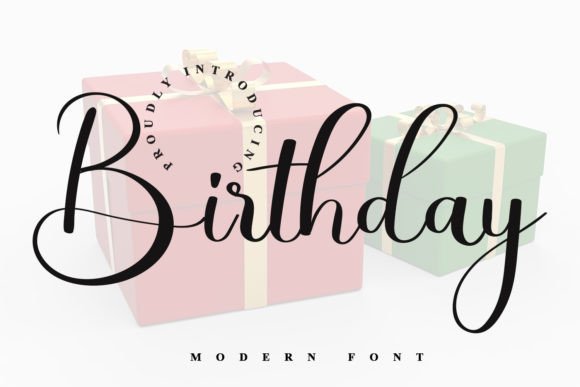
The Birth of a Beautiful Font: Celebrating Birthday Font
I’ll never forget the moment I stumbled upon the perfect font for a client’s birthday project. I was working on a tight deadline, and my design just wasn’t coming together. The client’s request was simple: create a beautiful banner that would make their loved one’s special day unforgettable. But, as I scrolled through my font library, nothing seemed quite right. That was when I discovered Birthday Font – a modern handwritten typeface that instantly elevated my design.
After working with Birthday Font on several projects, here’s my honest review:
- ✨ Beautifully crafted letters: Each letterform is carefully designed to be both elegant and playful.
- ✅ Versatile: From banners and quotes to branding and logos, Birthday Font adapts seamlessly to various design needs.
- ⚠️ Limited multilingual support: While Birthday Font covers the basics, it might not be the best choice for projects requiring extensive multilingual support.
- 🤔 Some glyphs require adjustment: A few glyphs, like the ampersand, might need tweaking to fit perfectly in your design.
- Experiment with OpenType features, like stylistic alternates, to add more personality to your text.
The Designer Inspiration Behind Birthday Font
Birthday Font was created by a talented designer with a passion for handwriting and typography. The story goes that the designer was inspired by the beauty of handwritten letters and the joy of celebrating special occasions. With Birthday Font, they aimed to create a versatile typeface that would bring happiness and elegance to various design projects.
| What makes Birthday Font unique? | Its beautifully crafted letters, versatility, and elegant yet playful feel. |
| Is Birthday Font suitable for body text? | While it’s possible to use Birthday Font for body text, it’s primarily designed for headlines, titles, and short paragraphs. |